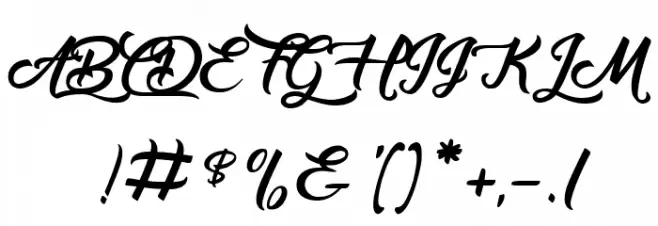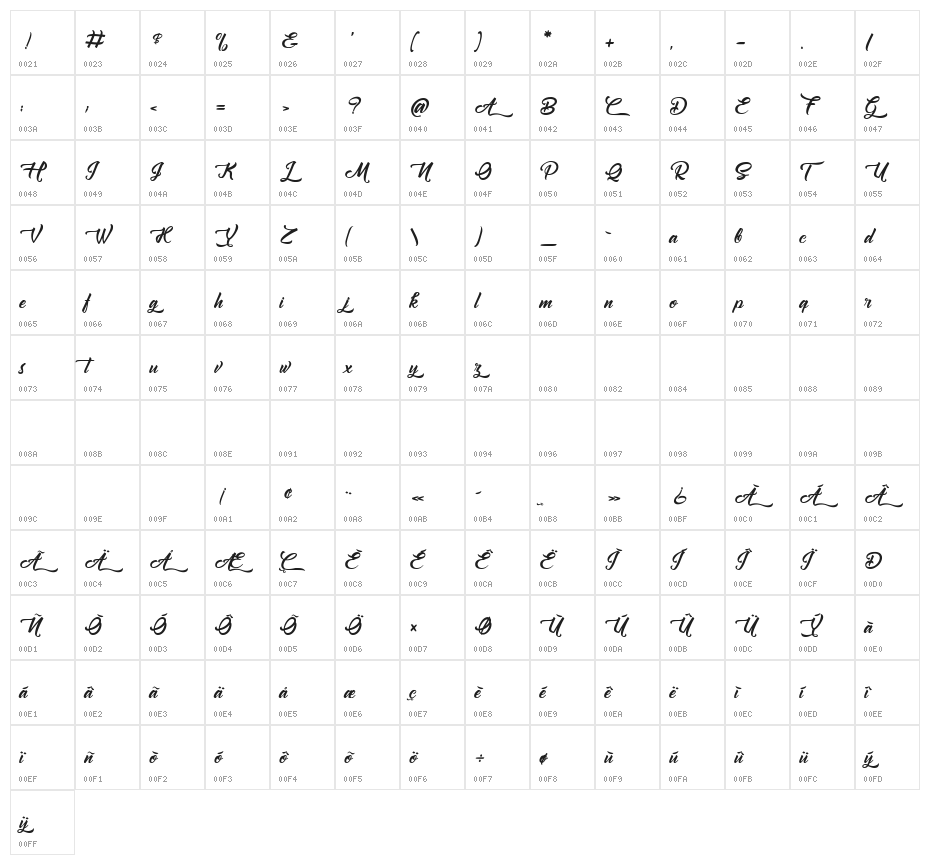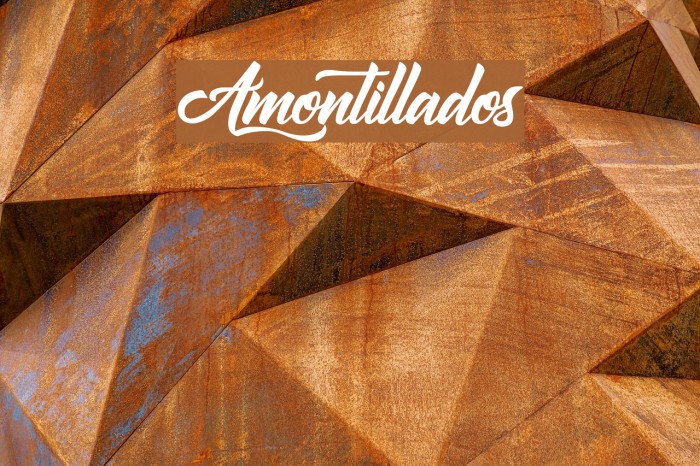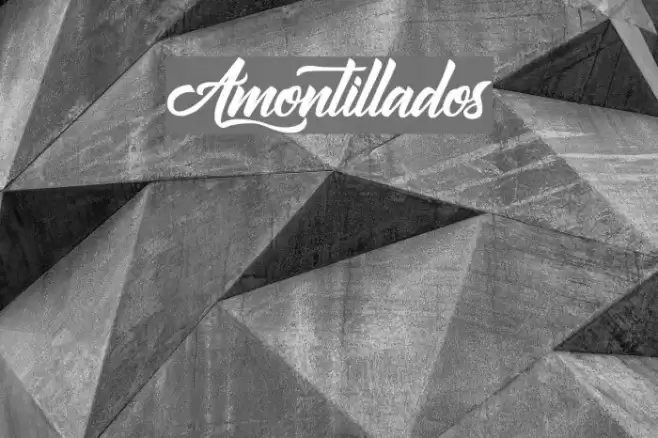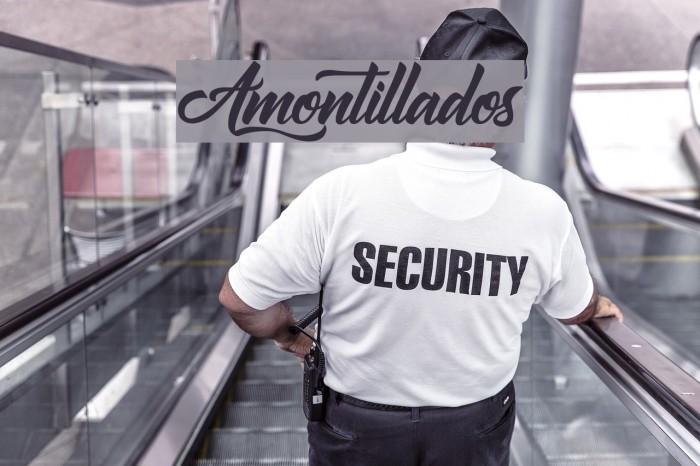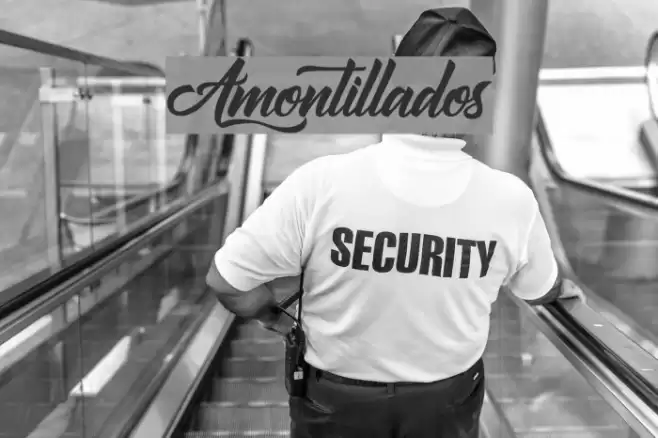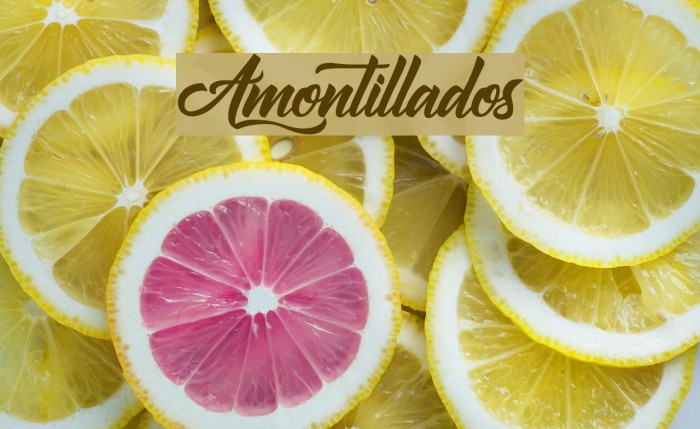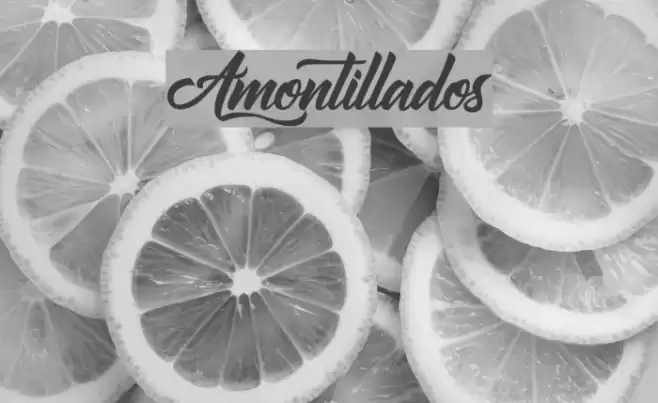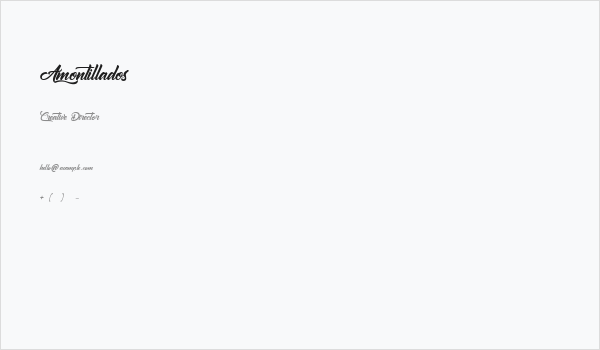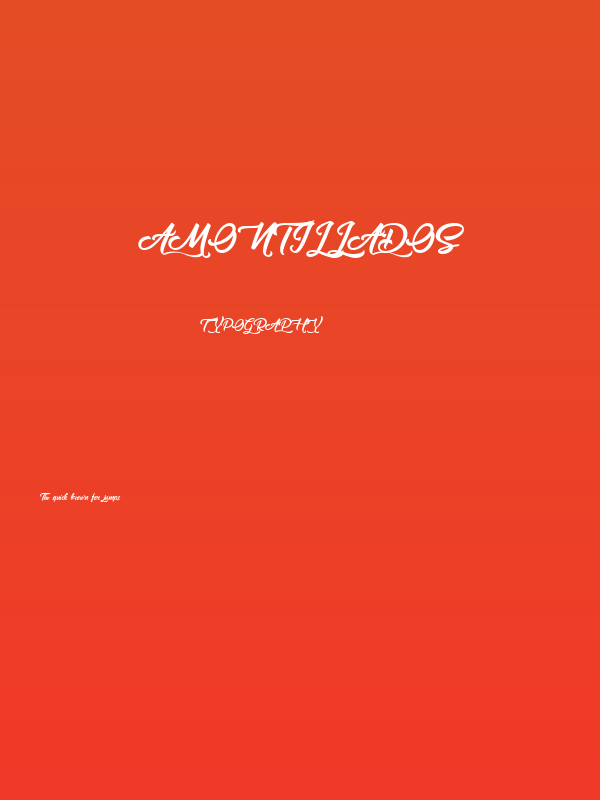
Amontillados Font
Amontillados Description
This font exudes elegance and sophistication with its flowing, cursive style. The characters are intricately designed with graceful loops and swashes, giving it a handwritten appearance. The uppercase letters are particularly ornate, featuring elaborate flourishes that extend beyond the baseline and cap height. The lowercase letters maintain a consistent style, with smooth connections that enhance readability while preserving the decorative nature. The numerals and special characters are equally stylized, ensuring a cohesive look across all text elements. This font is ideal for projects that require a touch of class and refinement.
| Use Case | Logos, Invitations, Headlines |
| Proposed Projects | Ideal for wedding invitations, luxury branding, greeting cards, and elegant packaging. |